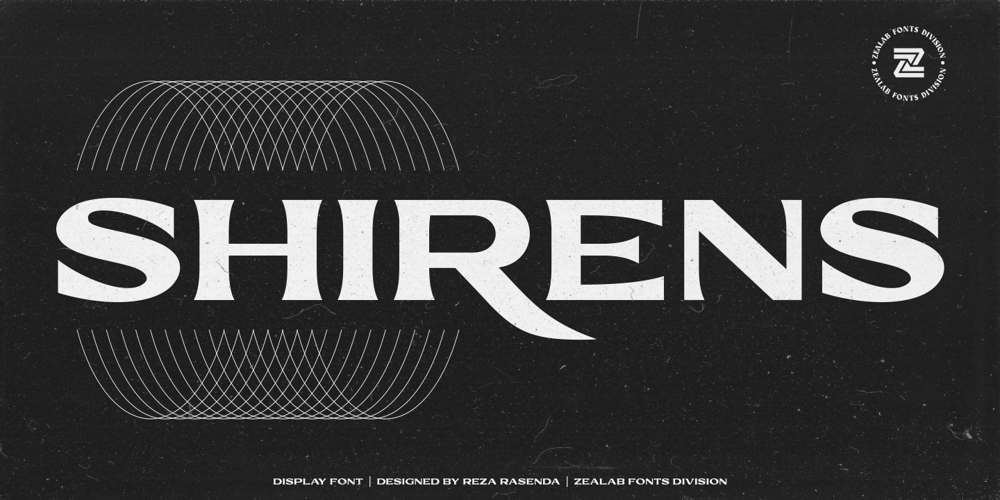
Shirens
Shirens font
Shirens Font Family was designed by Reza Rasenda and published by Zealab Fonts Division. Shirens contains 1 styles and family package options. Shirens is a font inspired by Emo/metal/harcore music scene and the hype street wear/apparel. It includes uppercase and lowercase, ligatures and alternate styles ,and also multi-lingual support, Shirens is fit for Band album covers, video tittles, stickers, clothing brand names, tshirt designs, badges designs, banner, flyer and more. Just look how it performs on the preview that I have provided, you will see its capabilities. But it will also work well with other themes.I can’t wait to see what you guys will come up with with using this font!